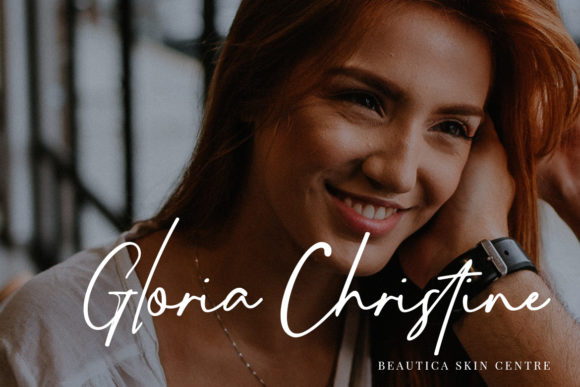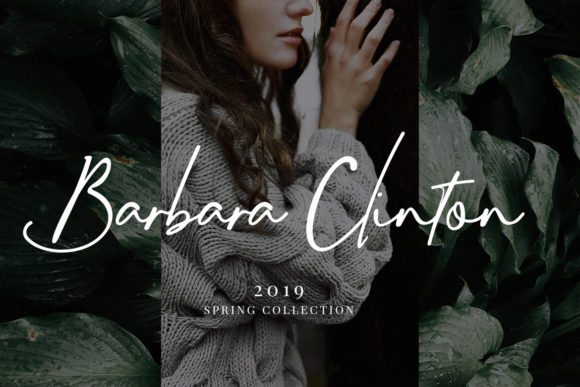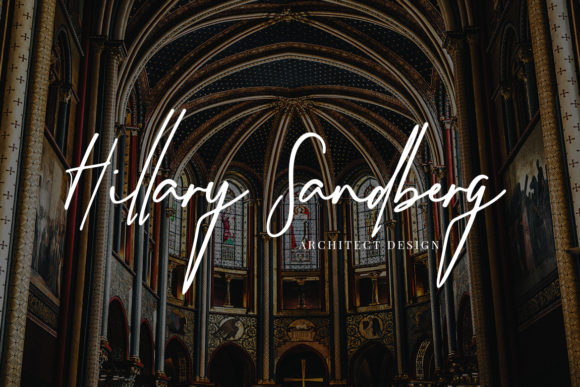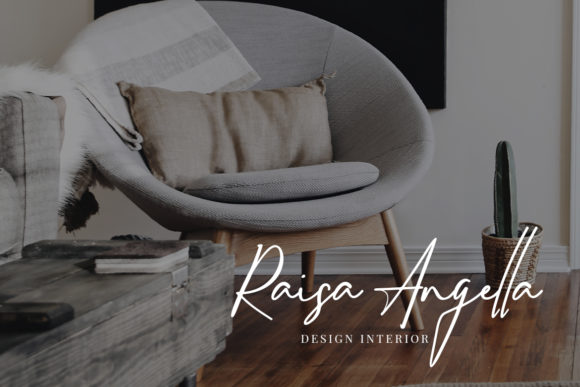
Sydhartta Font
About Sydhartta Font
Sydhartta a cool and clean handwritten font with stylish signature touch. Use it to add an organic feel to any design project.